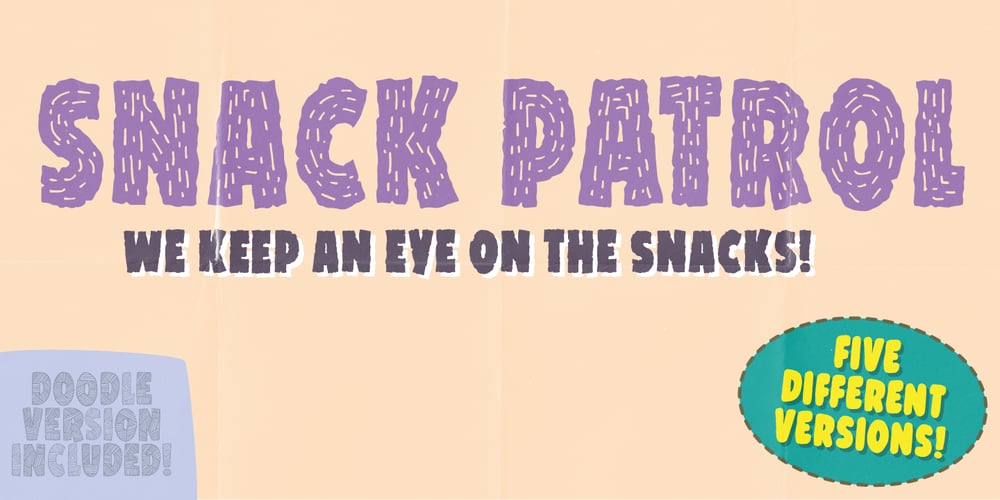
Snack Patrol
Snack Patrol font
Snack Patrol Font Family was designed by Jakob Fischer and published by PizzaDude.dk. Snack Patrol contains 5 styles and family package options. Snack Patrol keeps an eye on your candy! It also keeps an eye on your design! 5 different versions for you to play around with – and ofcourse they all have different upper- and lowercase along with ligatures for double letters!